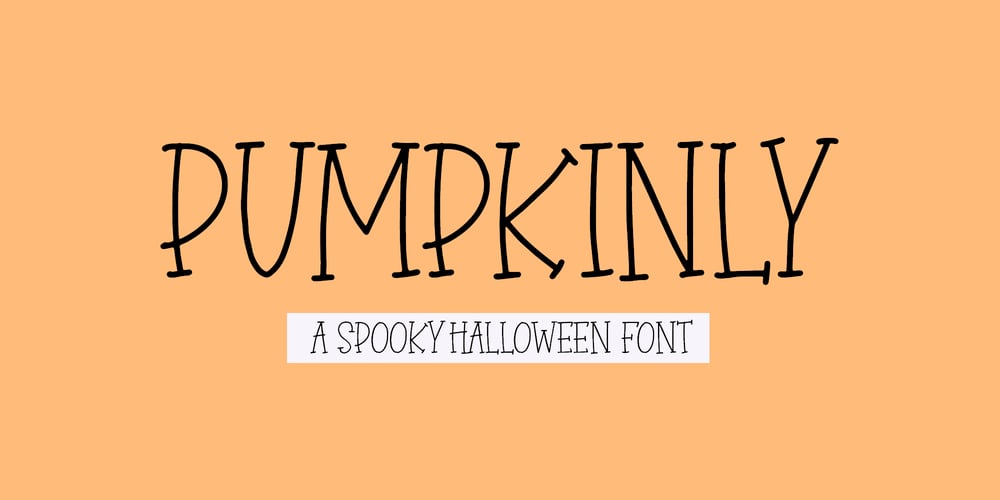
Pumpkinly Font Family was designed by Dmitrii Chirkov and published by Supfonts. Pumpkinly contains 1 styles and family package options. PUMPKINLY Cyrillic will be perfect for halloween lettering, beautiful frame for your home, book covers, greeting cards, logos, marketing, magazines or anything that requires cute handwritten lettering :)What’s inside: PUMPKINLY Script Multilingual support Cricut support If you have any questions, please contact me directly or in instagram @superdizigner